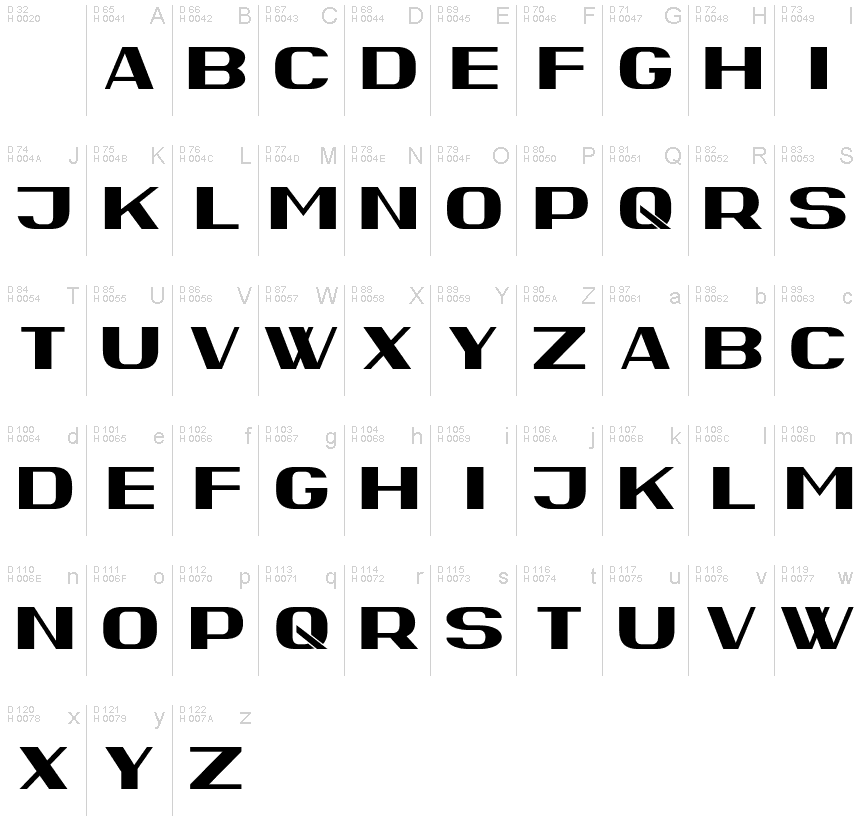
Berolinum Regular
Berolinum, the brainchild of renowned font designer Vladimir Nikolic, is a bold and expanded sans serif font that exudes confidence and modernity. Its clean lines and strong visual impact make it an ideal choice for a wide range of projects.
From eye-catching headlines to striking logos, Berolinum's boldness commands attention and leaves a lasting impression. This versatile font is perfect for branding campaigns, editorial designs, website headers, and social media graphics.
With its powerful presence and contemporary aesthetics, Berolinum brings sophistication to any project it graces.